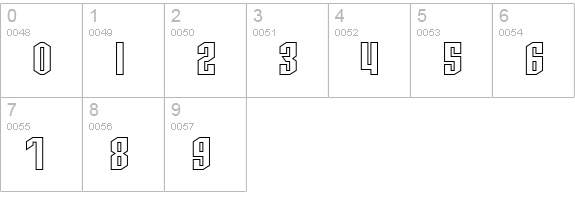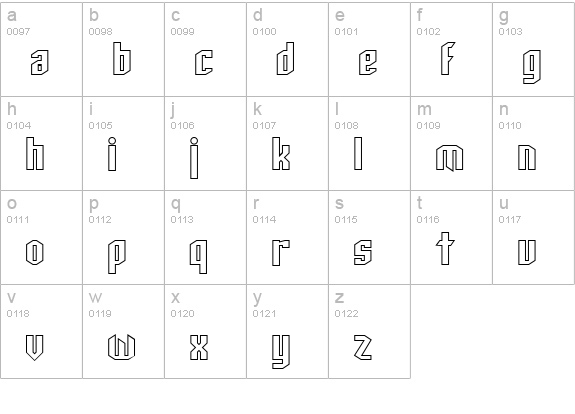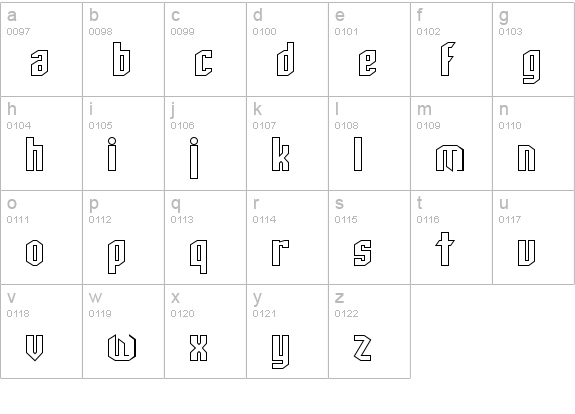
SF Archery Black Outline Font Details
SF Archery Black Outline is a maximum-weight, dramatic variant in the SF typeface family \xE2\x80\x94 well suited to maximum-impact headlines, posters, and packaging.
SF Archery Black Outline is a stunning display font that effortlessly combines simplicity and elegance. Its bold and eye-catching design makes it perfect for a wide range of projects, from logos and headlines to posters and packaging. The unique outline style adds a touch of modernity and sophistication, making any text stand out with a captivating presence. This font offers a versatile and dynamic aesthetic that is sure to leave a lasting impression on your audience. Its clean lines and sharp edges create a sense of precision and professionalism, making it ideal for both digital and print media. Whether you're designing a sleek website or crafting a sleek brochure, SF Archery Black Outline will elevate your work to new heights. One of the best things about SF Archery Black Outline is that it is available for free download at FontsMarket.com. This means that you can access this exceptional font without having to spend a dime. It's a perfect choice for designers, creatives, and anyone looking to add a touch of sophistication to their projects without breaking the bank. So why wait? Take advantage of this incredible opportunity and download SF Archery Black Outline today. With its striking design and the added bonus of being freely available, it's a font that's truly hard to resist. Transform your designs into works of art with SF Archery Black Outline and let your creativity shine.